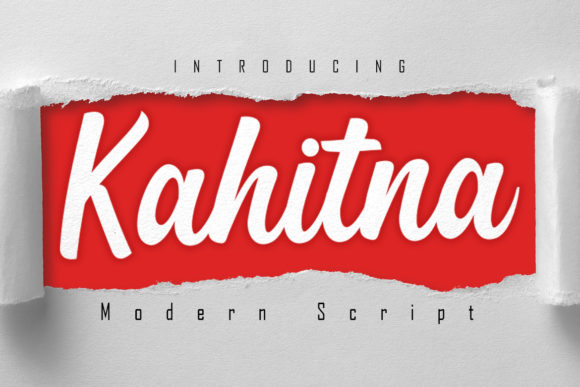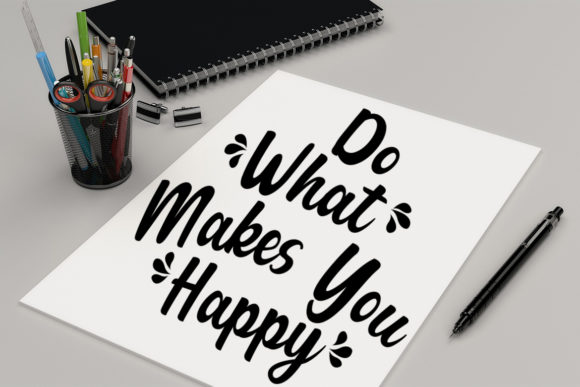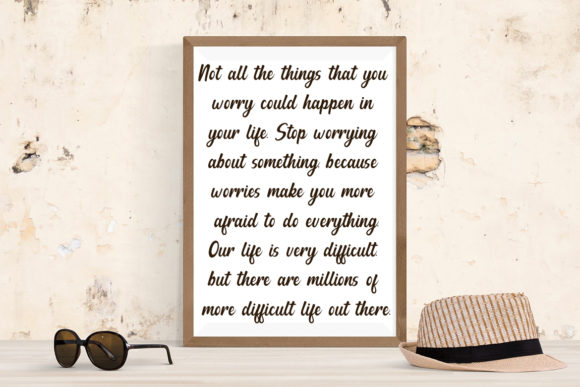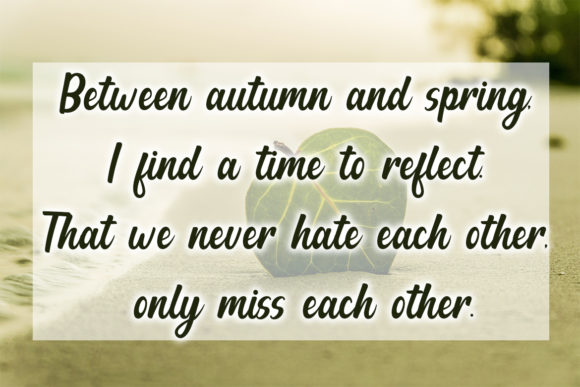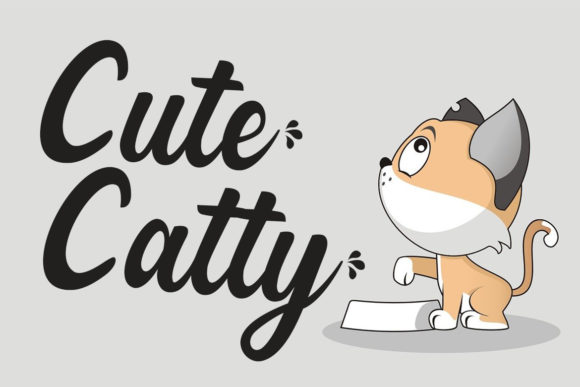
Kahitna Font
About Kahitna Font
Kahitna is a beautiful handwritten font. It features amazing ligatures that make this script incredibly versatile. Whether you’re looking for fonts for Instagram or calligraphy scripts for DIY projects, Kahitna will turn any creative idea into a true piece of art!